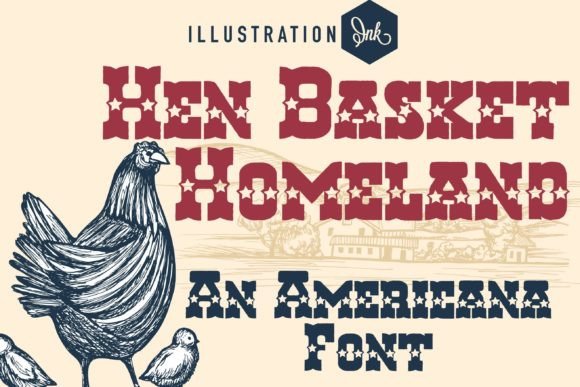
Embark on a typographic adventure with Hen Basket Homeland Font, a captivating decorative font family that intertwines the allure of the Wild West with the ethereal beauty of the night sky. Step into a realm where rugged meets celestial, where bold letterforms reminiscent of the Old West are adorned with delicately scattered stars, creating a sense of enchantment that sparks the imagination.
Hen Basket Homeland Font is the brainchild of Illustration Ink, a renowned font foundry known for its evocative and distinctive creations. This font family is not merely a collection of letters; it's an artistic expression that evokes a sense of nostalgia, wanderlust, and boundless creativity. As you type with Hen Basket Homeland, you'll feel transported to a world where cowboys and stars collide, where every word carries the weight of history and the magic of the cosmos.
Whether you're a seasoned designer, a creative entrepreneur, or simply someone who appreciates the beauty of typography, Hen Basket Homeland Font is your passport to a world of captivating designs. Its versatility knows no bounds, lending its charm to logos, posters, invitations, branding projects, social media graphics, and any creative endeavor that calls for a touch of Western flair and celestial wonder.
With Hen Basket Homeland Font, you'll effortlessly elevate your designs, capturing the attention of your audience with its unique charm and undeniable charisma. Its bold strokes and scattered stars create a visual symphony that captivates the eye and ignites the imagination. Embrace the spirit of the Wild West, let your creativity soar among the stars, and experience the transformative power of Hen Basket Homeland Font today.